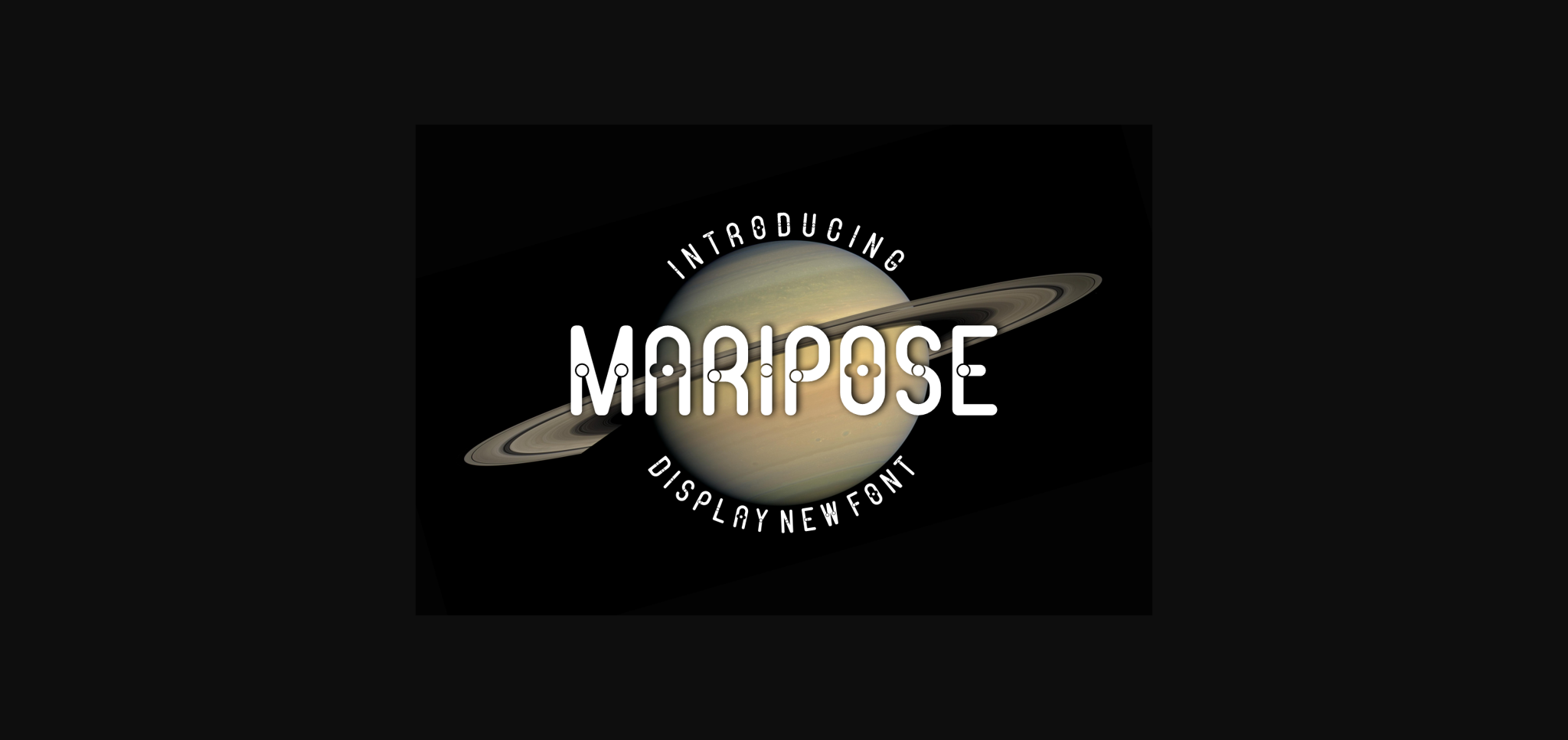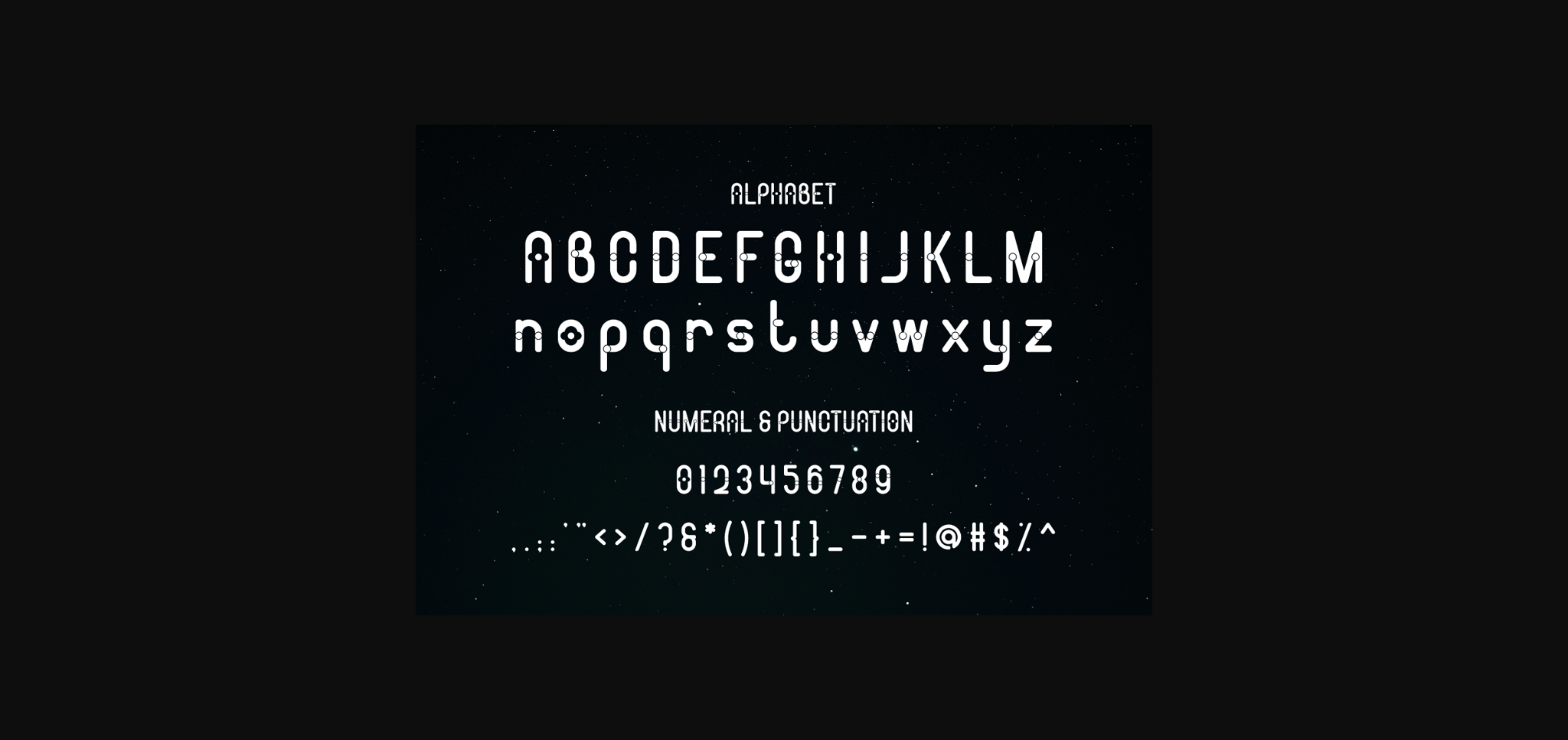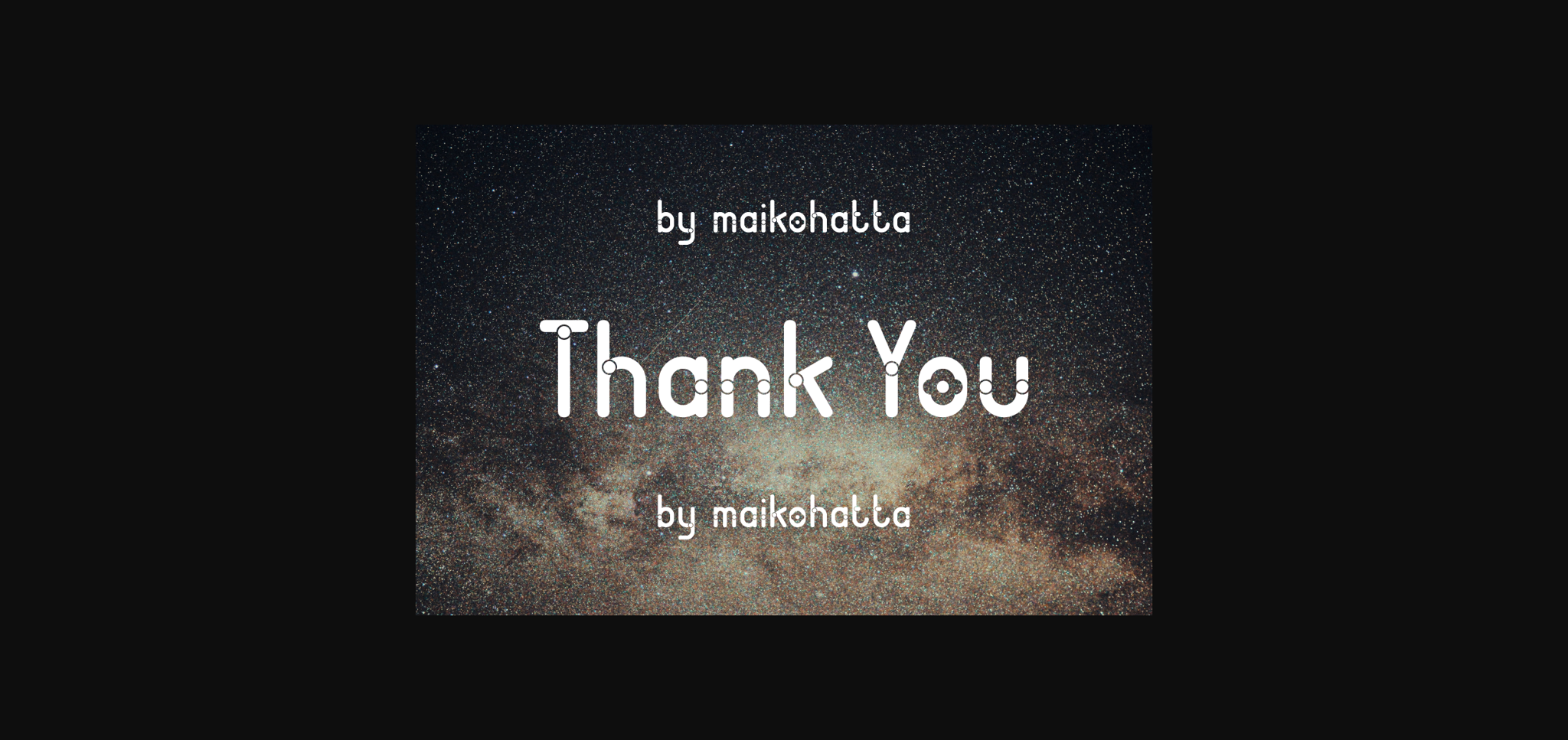
About Maripose Font
Maripose is a cool, sci-fi sans serif font. Whatever the topic, this font will be a wonderful asset to your font library, as it has the potential to enhance any creation.